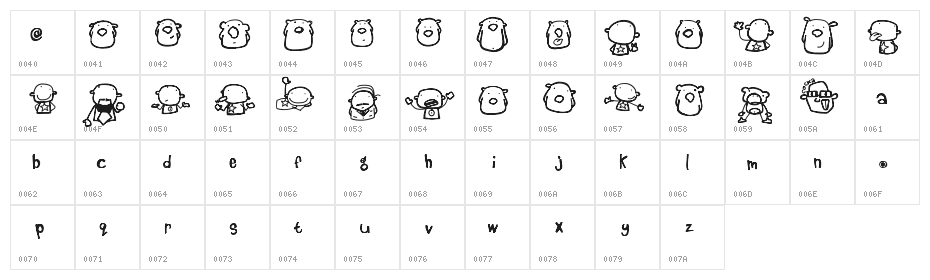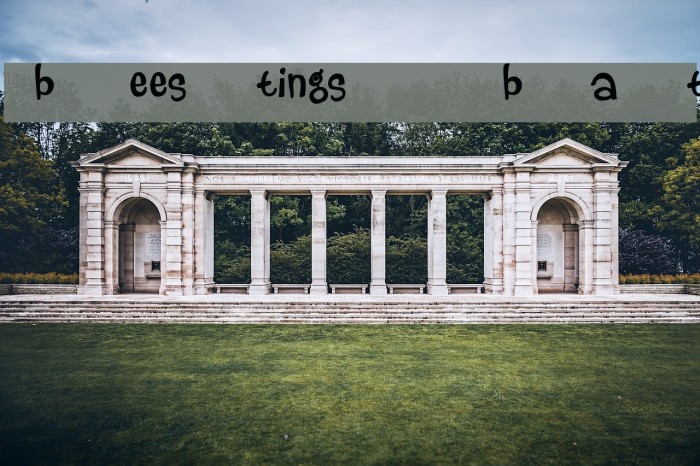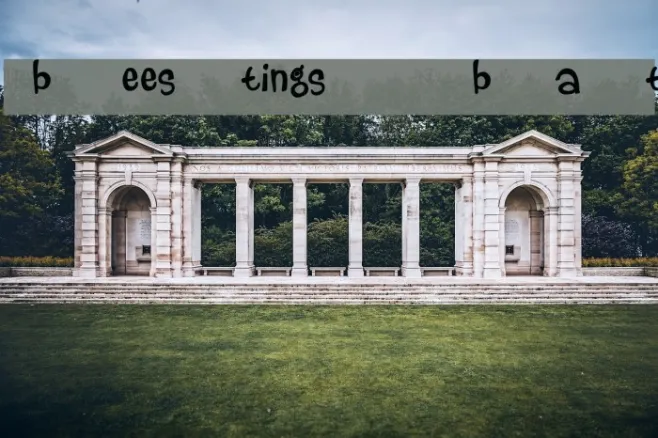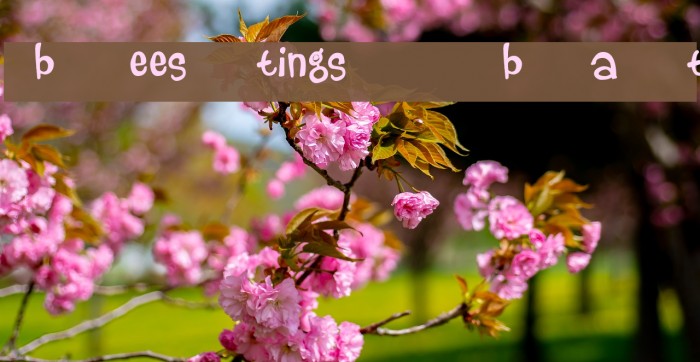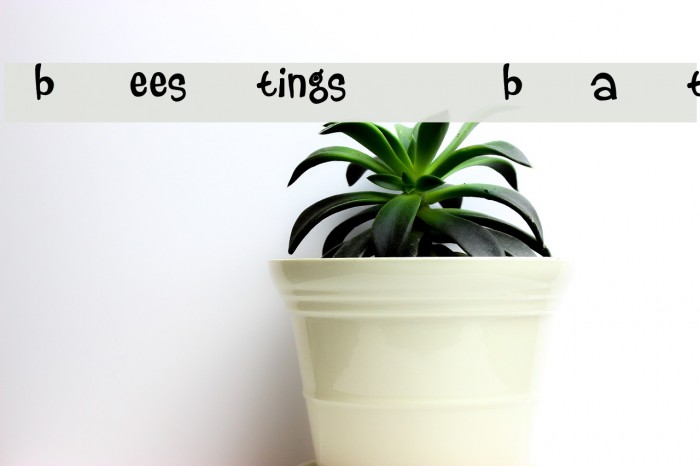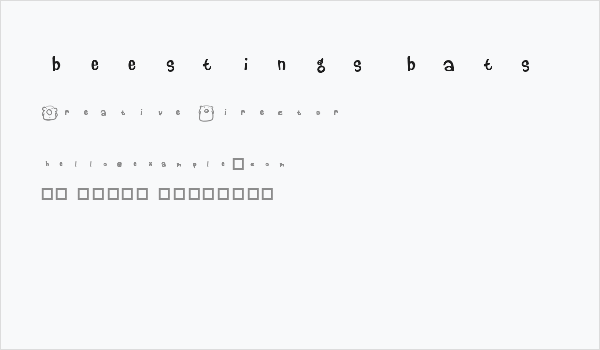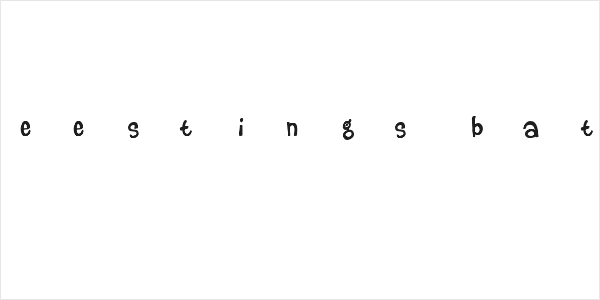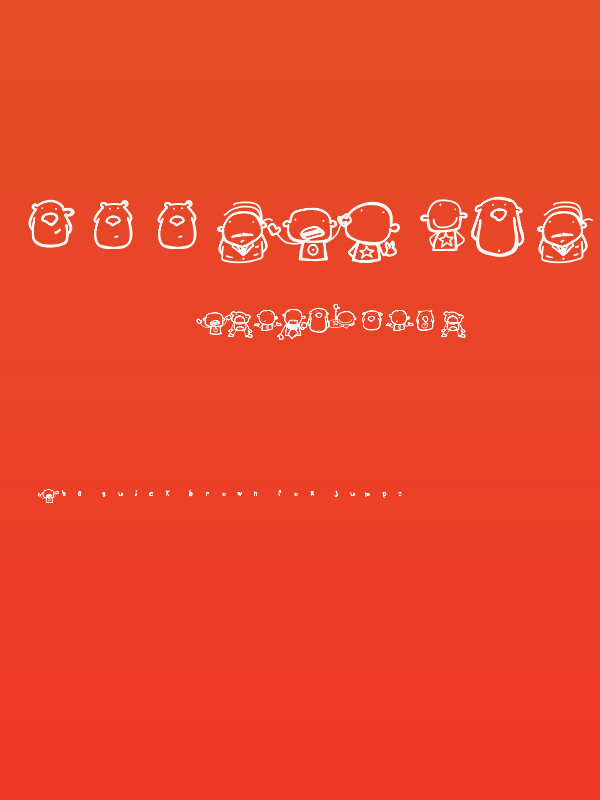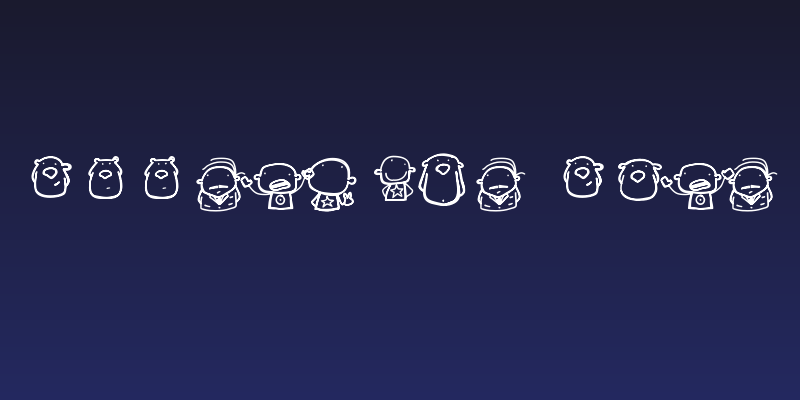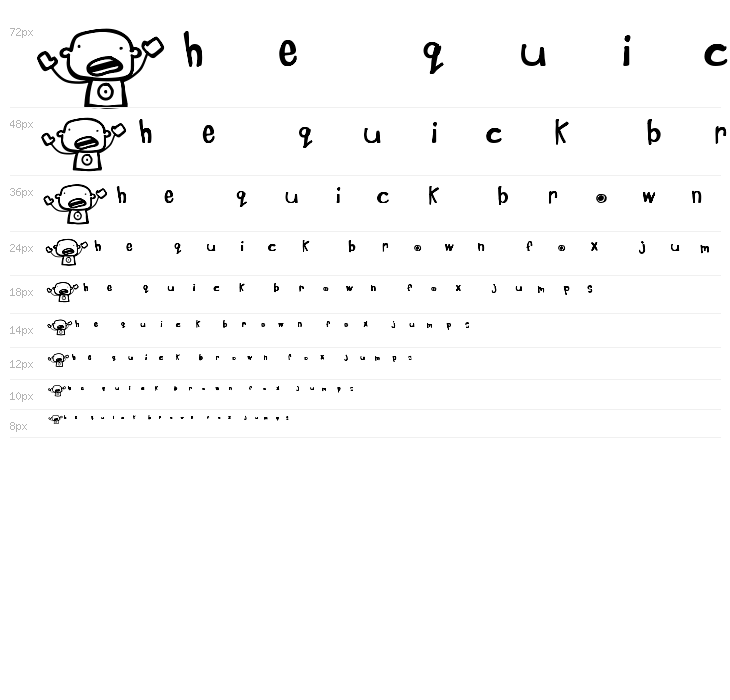
beestings bats Font
beestings bats Description
This playful and whimsical font features a series of cartoon-like characters that resemble bees or small creatures, each with distinct expressions and poses. The letters are crafted in a casual, handwritten style, with a mix of uppercase and lowercase that adds to its informal charm. The characters are rounded and slightly irregular, giving them a friendly and approachable feel. The font includes a set of decorative elements that can be used to enhance designs with a fun and lighthearted touch.
| Proposed Projects | Ideal for children's books, playful branding, greeting cards, and any project that requires a fun and whimsical touch. |